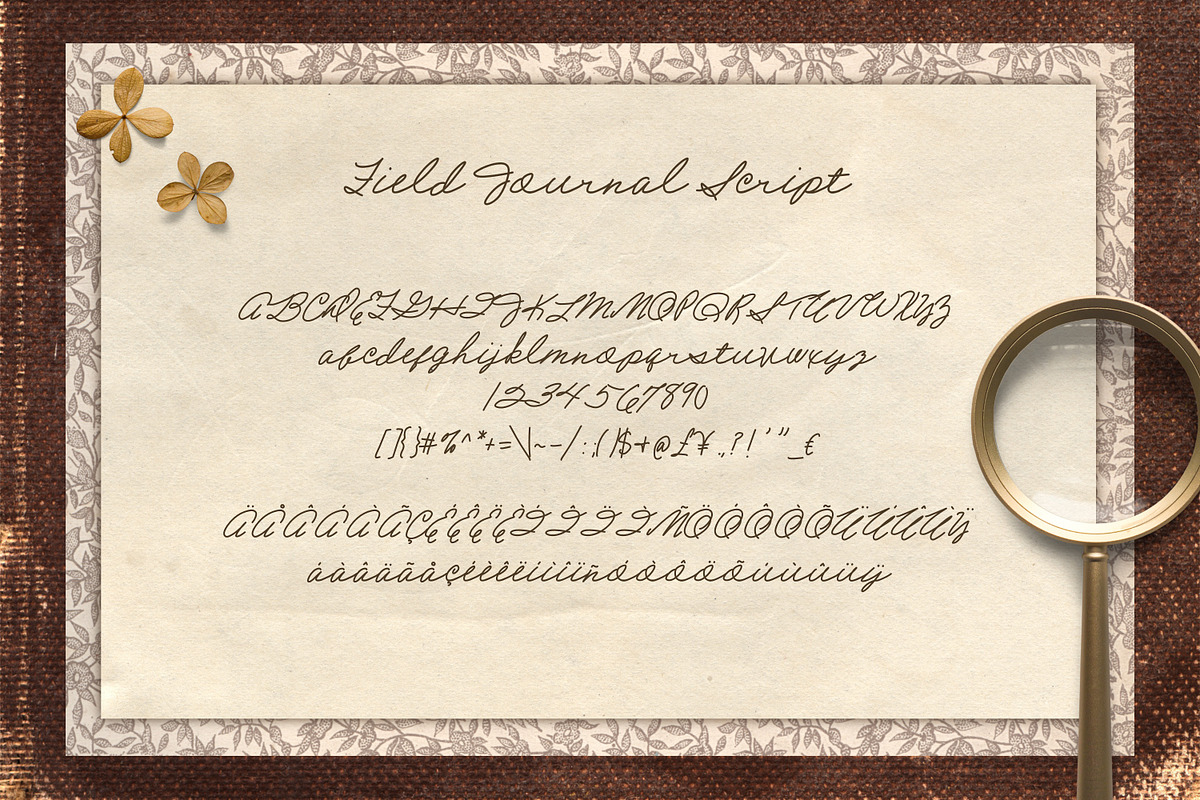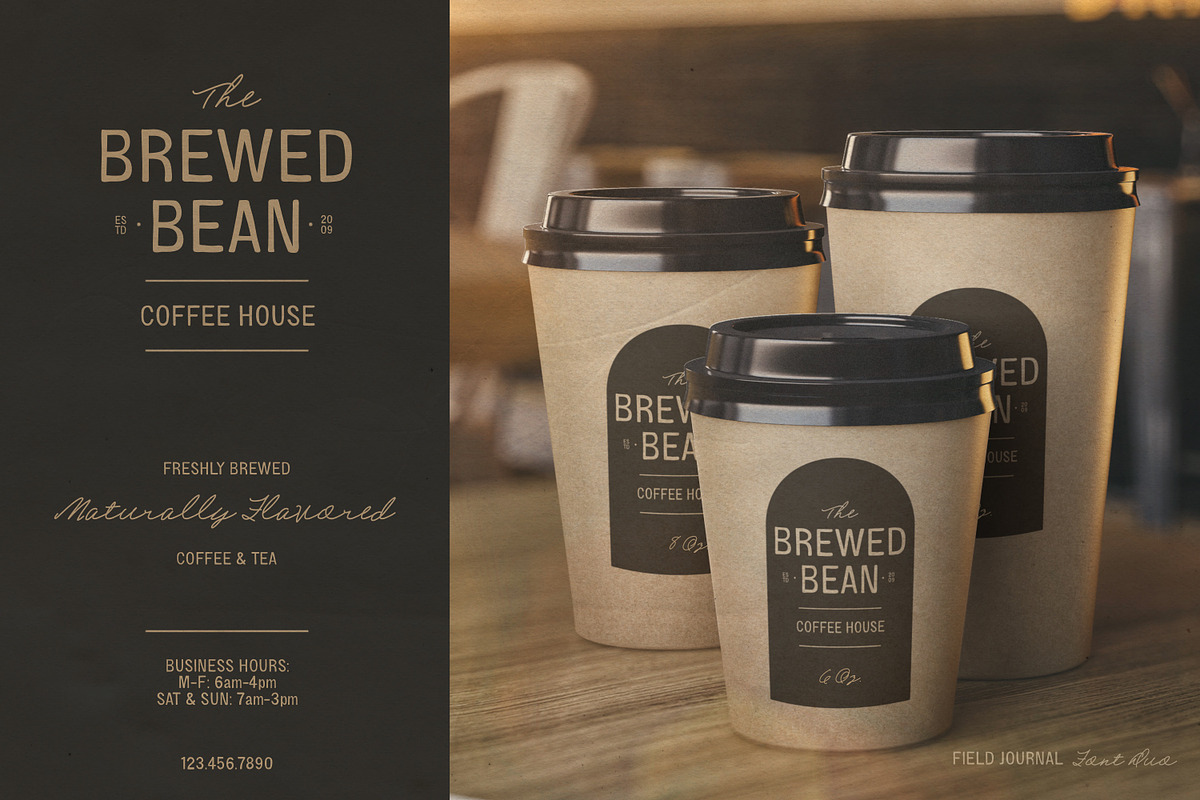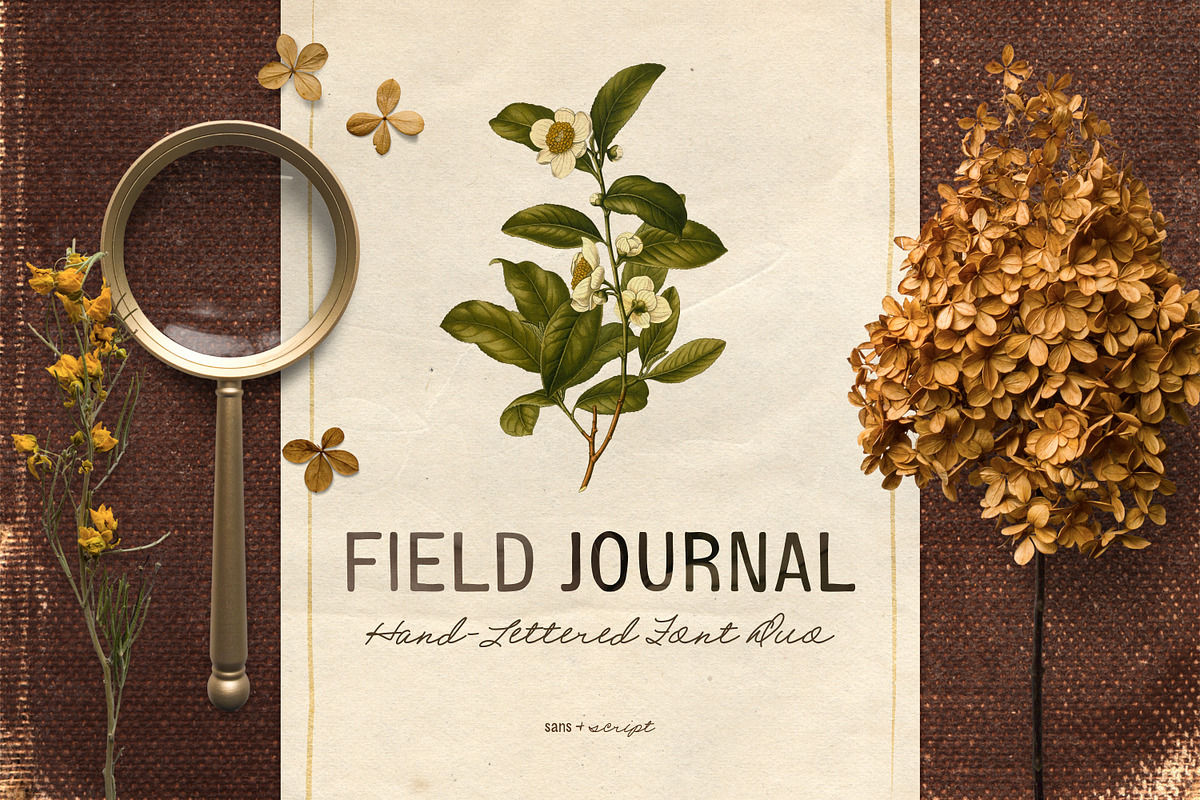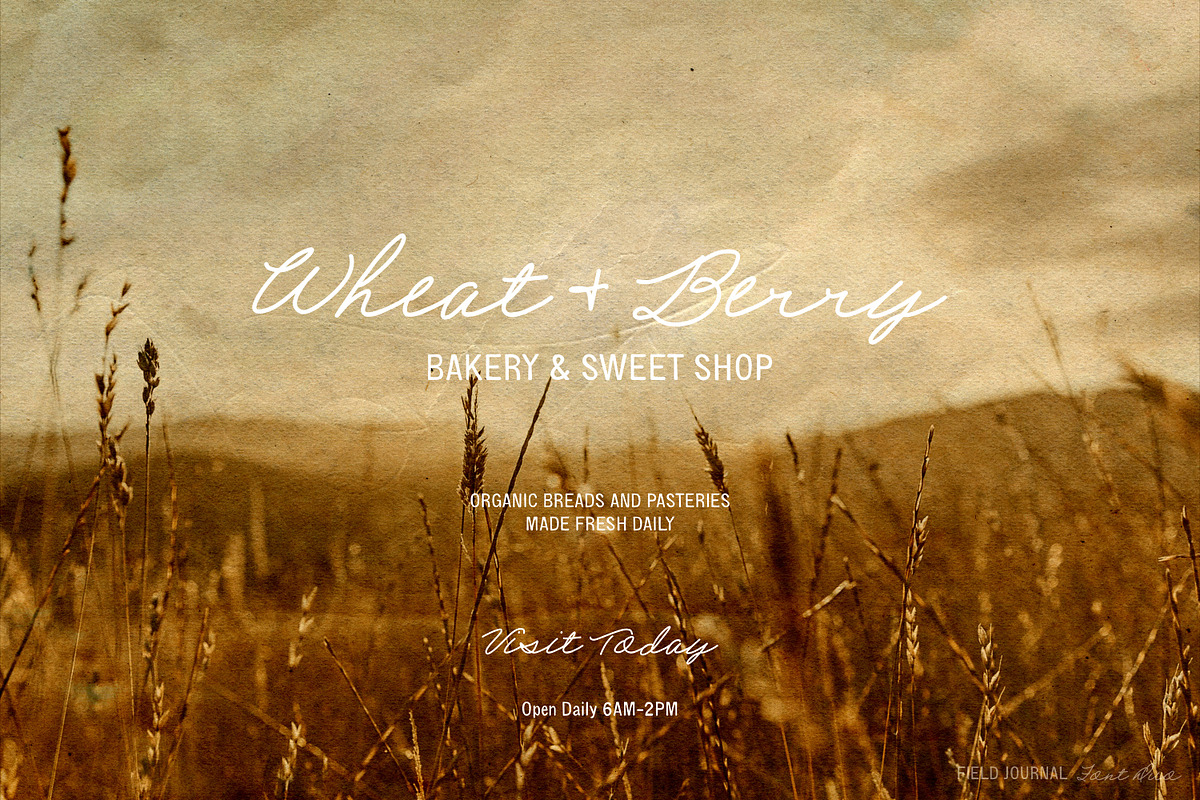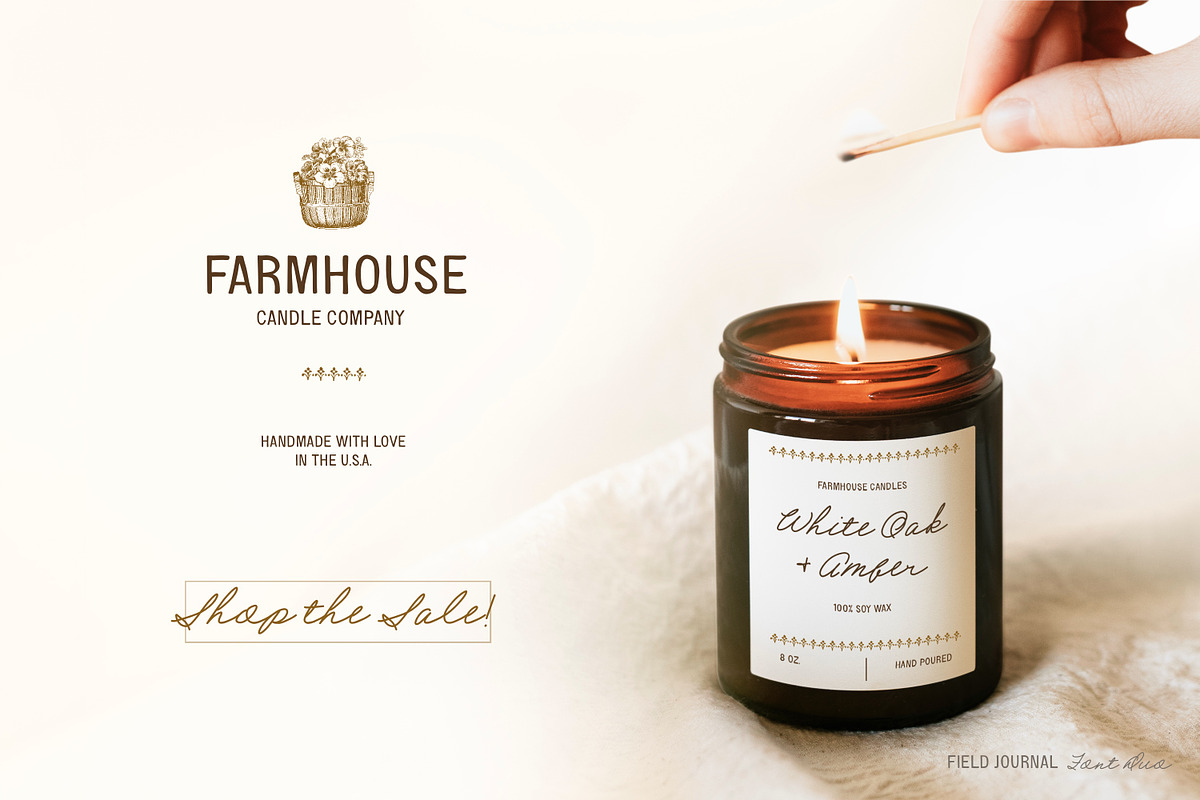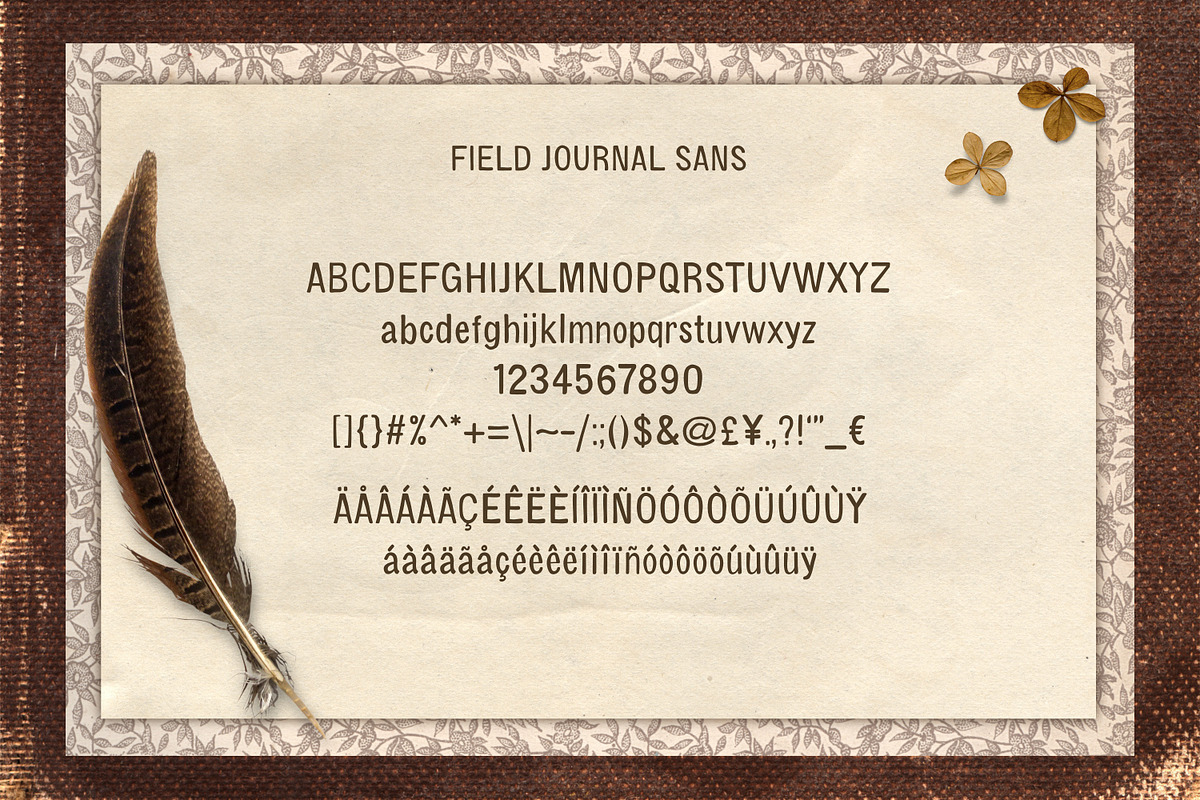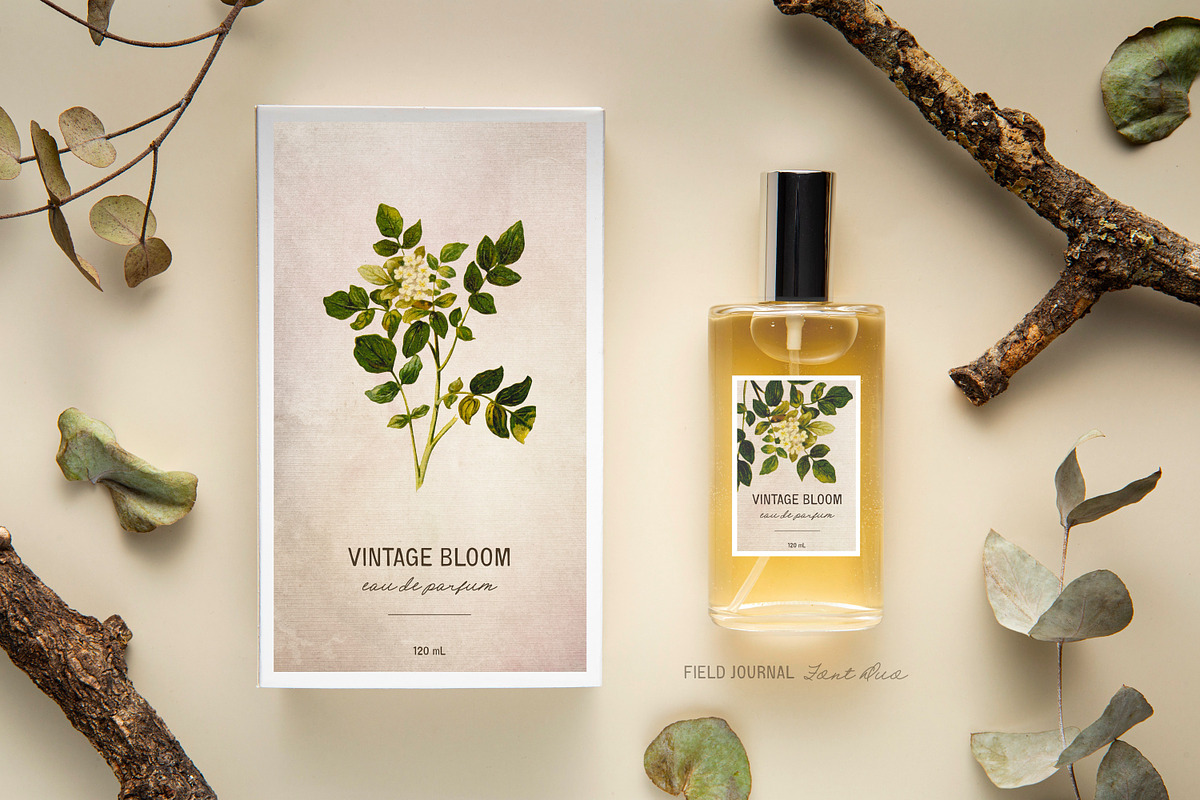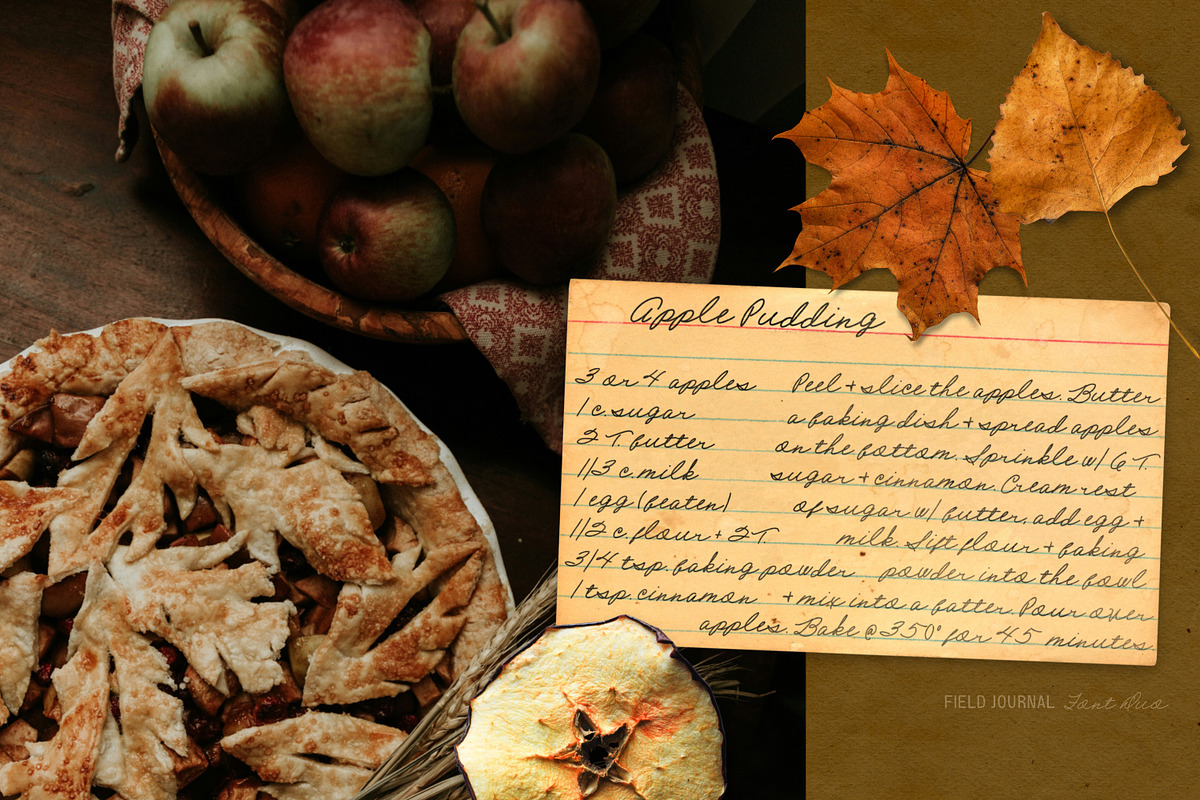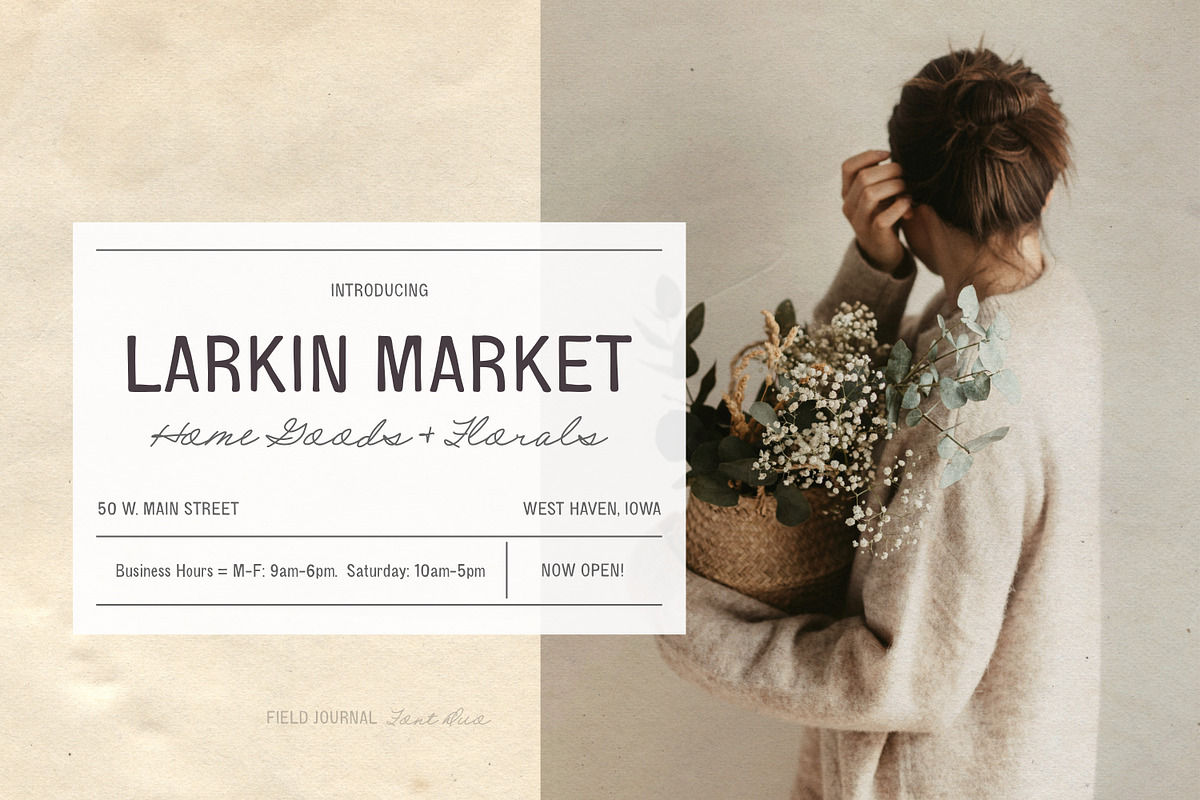
Field Journal Handwritten Font Duo
Introducing the hand-lettered Field Journal font duo. Field Journal Sans font is a multilingual vintage-inspired sans serif font with imperfect edges to add a rustic touch. Field Journal Script font is based on my grandmother's handwriting from old recipe cards.
These two fonts are perfect for junk journals, clothing, packaging, mugs, home decor, social media marketing, logos, and more.